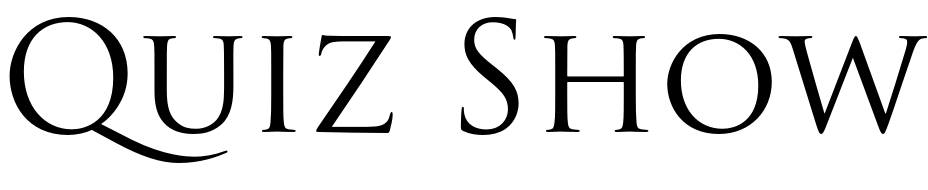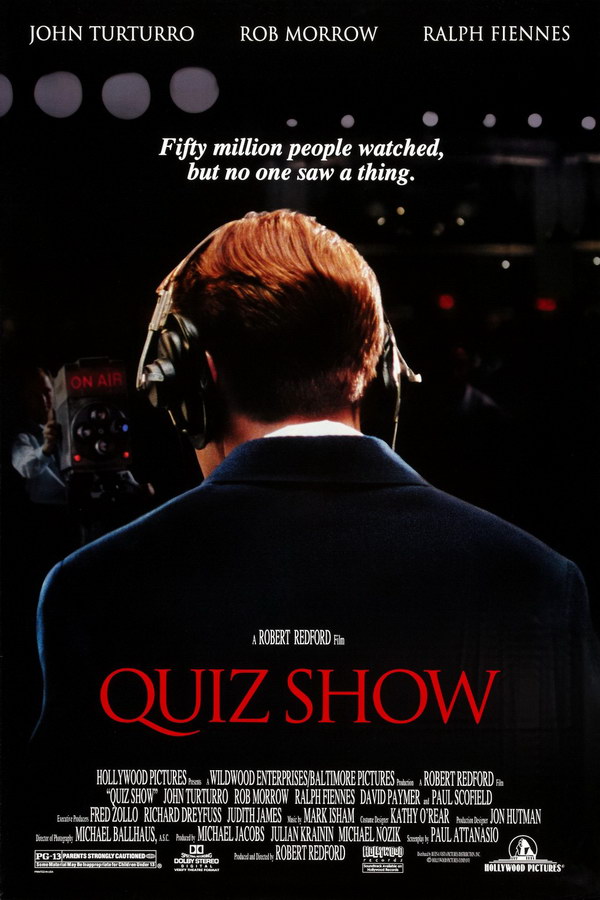
Quiz Show Font
Fonts in UseQuiz Show is a 1994 film directed by Robert Redford, based on the true story of the 1950s quiz show scandals in which contestants were fed answers in order to boost ratings.
The movie title "Quiz Show" in the poster most likely features the Trajan font. Trajan is an all-caps font created by Carol Twombly for Adobe in 1989.